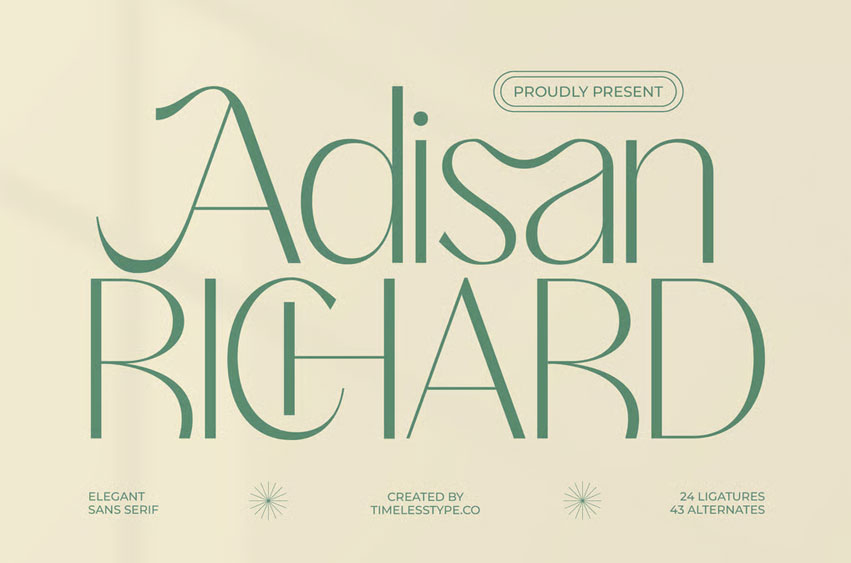
Adisan Richard Font
Adisan Richard Font is an elegant sans serif crafted with refined curves, tall proportions, and a modern high-attitude. Designed for premium branding, editorial layouts, and minimalist luxury visuals, this typeface blends graceful thin strokes with subtle artistic flares that elevate any composition instantly. Its calm geometry and sophisticated letterforms create a polished, upscale aesthetic without sacrificing readability.
Complete with 24 ligatures and 43 alternates, Adisan Richard offers flexible stylistic options for designers who want to build unique logotypes, cosmetic branding, magazine titles, jewelry packaging, invitations, and contemporary visual identities. This font embodies quiet luxury—clean, stylish, timeless.